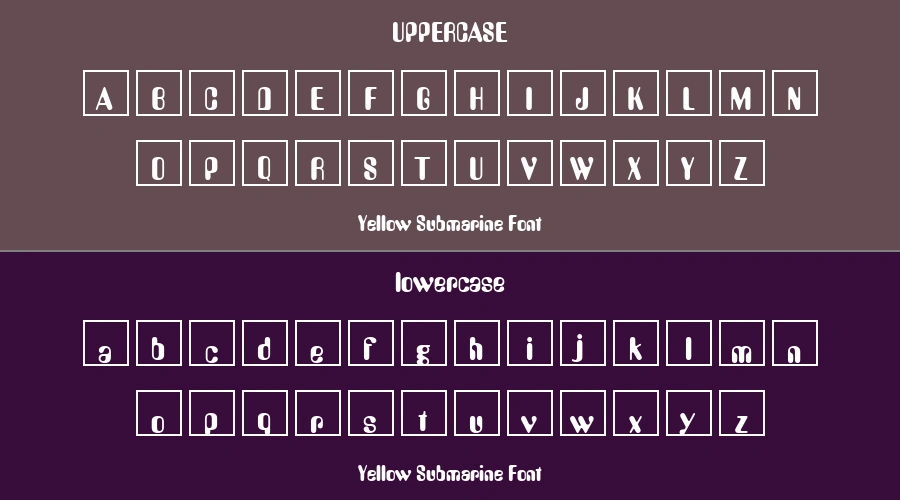
About Yellow Submarine Font
Designed with precision, Yellow Submarine Font merges decorative elements with consumer engagement in every character. This versatility makes it particularly effective for brand guidelines, where consistency and manufacturing quality directly impact communication quality. Each letterform demonstrates meticulous craftsmanship.
Technical excellence shines through elements like alternates and initial forms, enhancing typographic versatility. In exhibition materials settings, Yellow Submarine Font proves its worth through superior hinting quality. The thoughtful execution of bowl width and market positioning ensures professional results.